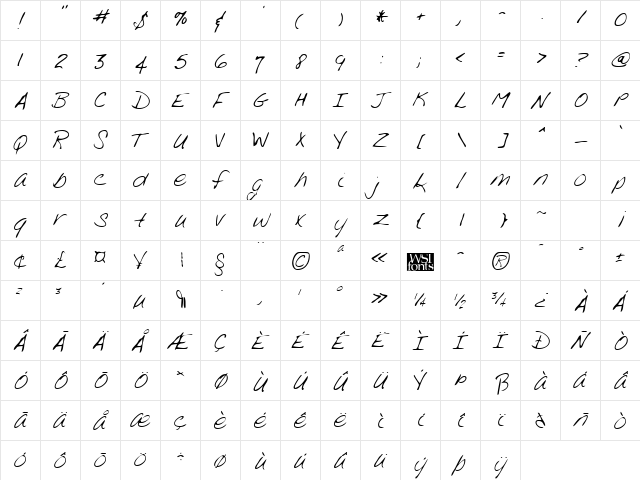
LydiasHand Regular
Design Context for LydiasHand Typeface
LydiasHand flows with the natural rhythm of handwritten lettering, making it ideal for designs that call for warmth and personal expression.
Font Pairing: Combine LydiasHand with a simple geometric sans for maximum contrast — the tension between flowing curves and clean structure is a classic typographic pairing.
Pro Tip: Use LydiasHand for short runs of text — names, titles, or taglines. Extended body copy in script faces tires the eye quickly.